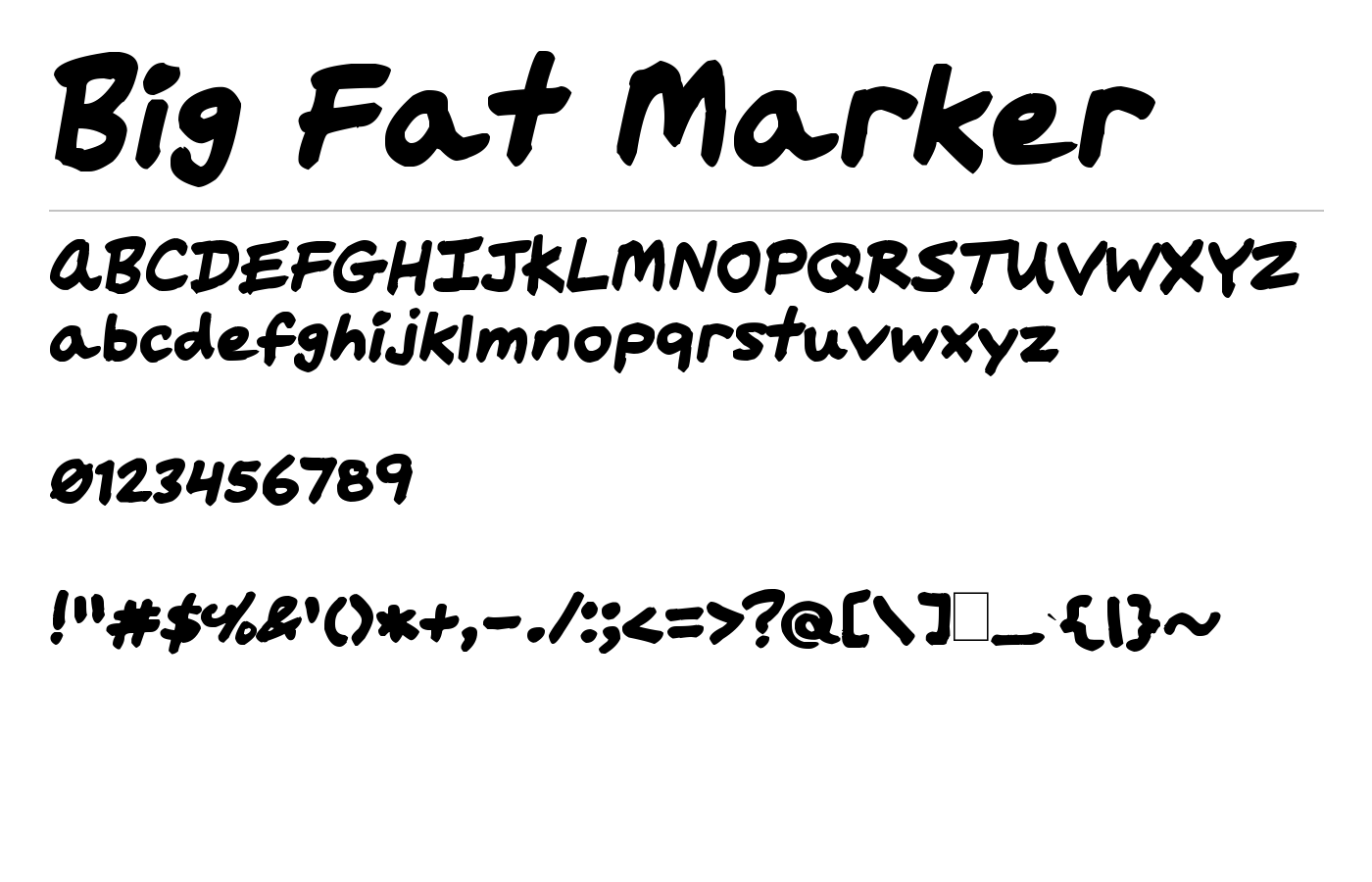
Big Fat Marker is a bold and playful handwritten sans serif font that mimics thick marker strokes with irregular shapes and casual flair. Its high x-height and energetic letterforms make it feel friendly and informal, perfect for creative, fun, or youthful design projects. This font works well for eye-catching headlines, posters, and branding that aim to convey personality and a spontaneous, approachable vibe.
Big Fat Marker Font
About Big Fat Marker Font